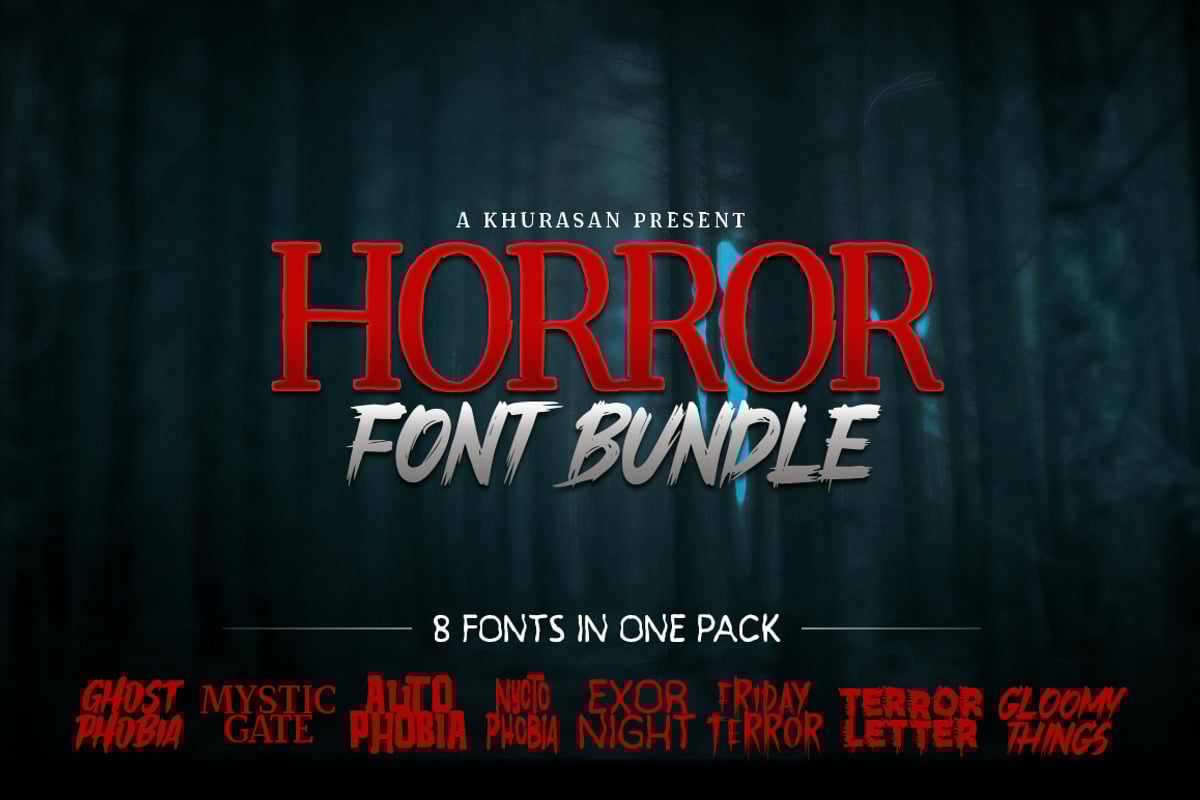
Horror Font Bundle
Transform your horror projects with 8 spine-chilling fonts designed to terrify and captivate audiences.
This carefully curated Horror Font Bundle delivers premium decorative, scary, and gothic typefaces with distinctive variation styles, all for just $16. Each font brings its own unique horror aesthetic to elevate your darkest creative visions.
Perfect applications include:
- Movie posters and film graphics
- Book cover lettering
- Album and music cover designs
- Brand logos with edge
- Halloween and seasonal projects
Font Collection Includes:
- Ghostphobia
- Mystic Gate
- Autophobia
- Nyctophobia
- Exorninght
- Friday Terror
- Terror Letter
- Gloomy Things